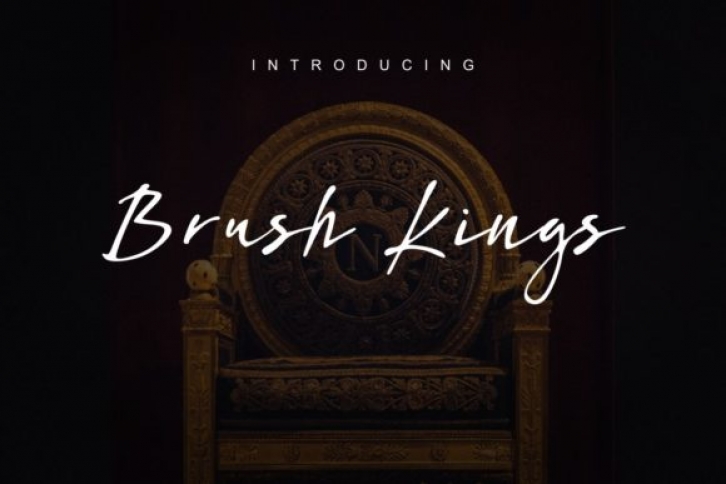
Brush Kings is natural script font. It’s perfect for logos, quotes, posters, playful lettering, clothing and any other design which needs an unique touch.